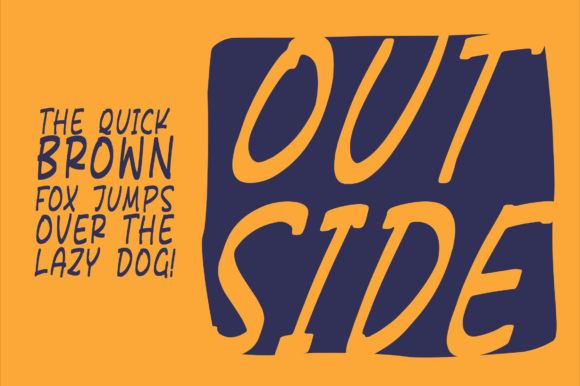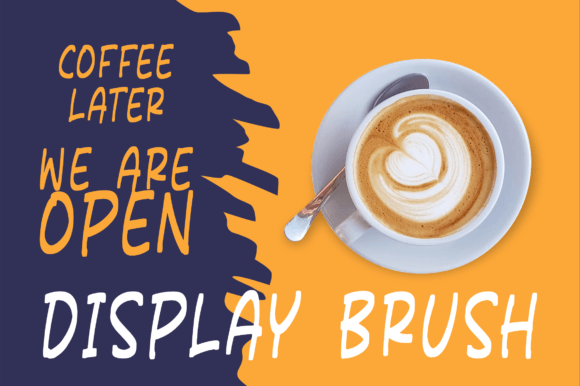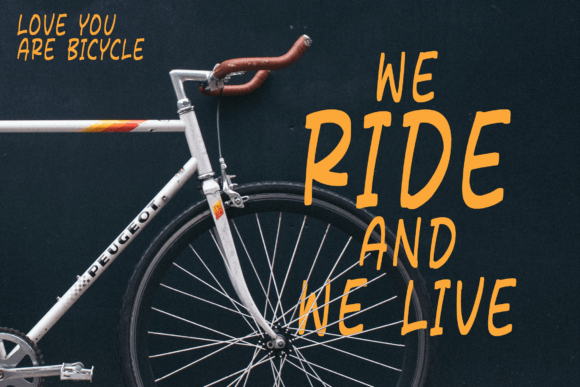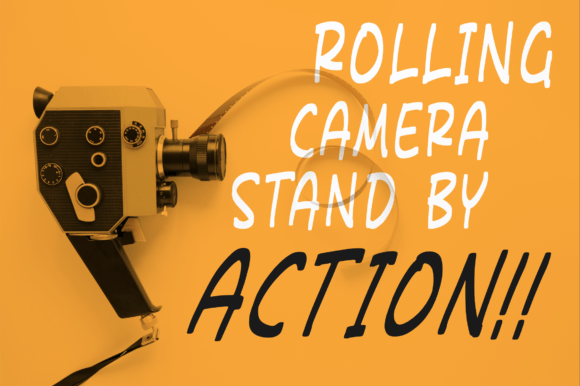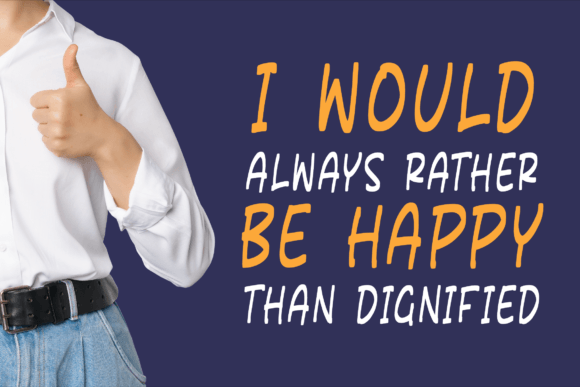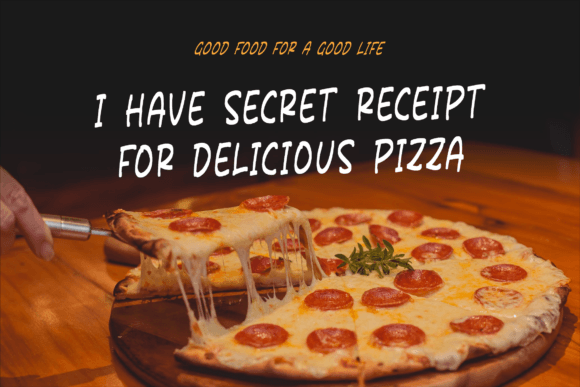
Introduction to Playing Barnley Font
Have you ever stared at a blank canvas, waiting for inspiration to strike? I’m sure we’ve all been there – the blank page staring back at us, refusing to reveal its secrets. But then, it happens. A spark of creativity ignites, and suddenly, ideas begin to flow. For designers, this moment is pure magic. It’s the moment when a project comes together, and we get to unleash our creativity.
One of the most crucial elements in bringing our creative projects to life is the right design resource. And that’s where the Playing Barnley Font comes in – a cute and quirky display font that adds an incredibly joyful touch to our designs. With its high quality and versatility, this font is a valuable addition to any designer’s toolkit.
Not only is the Playing Barnley Font a free download with a transparent background, but it’s also a perfect way to add a personal touch to our designs. Whether you’re working on a new project or simply looking to refresh your existing portfolio, this font is sure to make your work stand out.
Key Features of Playing Barnley Font
- Unique, hand-drawn design with a playful and whimsical feel, making it perfect for adding a touch of personality to your creative projects.
Honest Review: Playing Barnley Font
I recently came across the Playing Barnley Font and I’m excited to share my honest review. As a designer, I’m always on the lookout for high-quality design resources to elevate my creative projects.
Here are some things that work well with the Playing Barnley Font:
- ✨ Unique and quirky design: The font has a fun, hand-drawn feel that’s perfect for adding a touch of whimsy to your design projects.
- ⚠️ Limited language support: The font only supports English and a few other languages, which may be a limitation for designers working on international projects.
- ⚠️ Not suitable for large-scale text: Due to its quirky design, the font may not be the best choice for large-scale text or headlines.
Overall, I’m impressed with the Playing Barnley Font. It’s a fun and versatile design resource that’s perfect for adding a touch of personality to your creative projects. While it may have a few limitations, the benefits far outweigh the drawbacks.
Playing Barnley Font
The Playing Barnley Font is a versatile design resource ideal for creative projects requiring high-quality, unique typography. Its transparent background makes it easy to integrate into various design elements.
Tips for Getting the Most Out of Playing Barnley Font
Experiment with different font sizes, colors, and styles to create a unique look. You can also combine the font with other design elements to add depth and visual interest.
Common Use Cases for Playing Barnley Font
The Playing Barnley Font is suitable for various creative projects, including logos, posters, social media graphics, and print materials. Its high-quality design and transparent background make it an ideal choice for designers seeking a unique and versatile font.